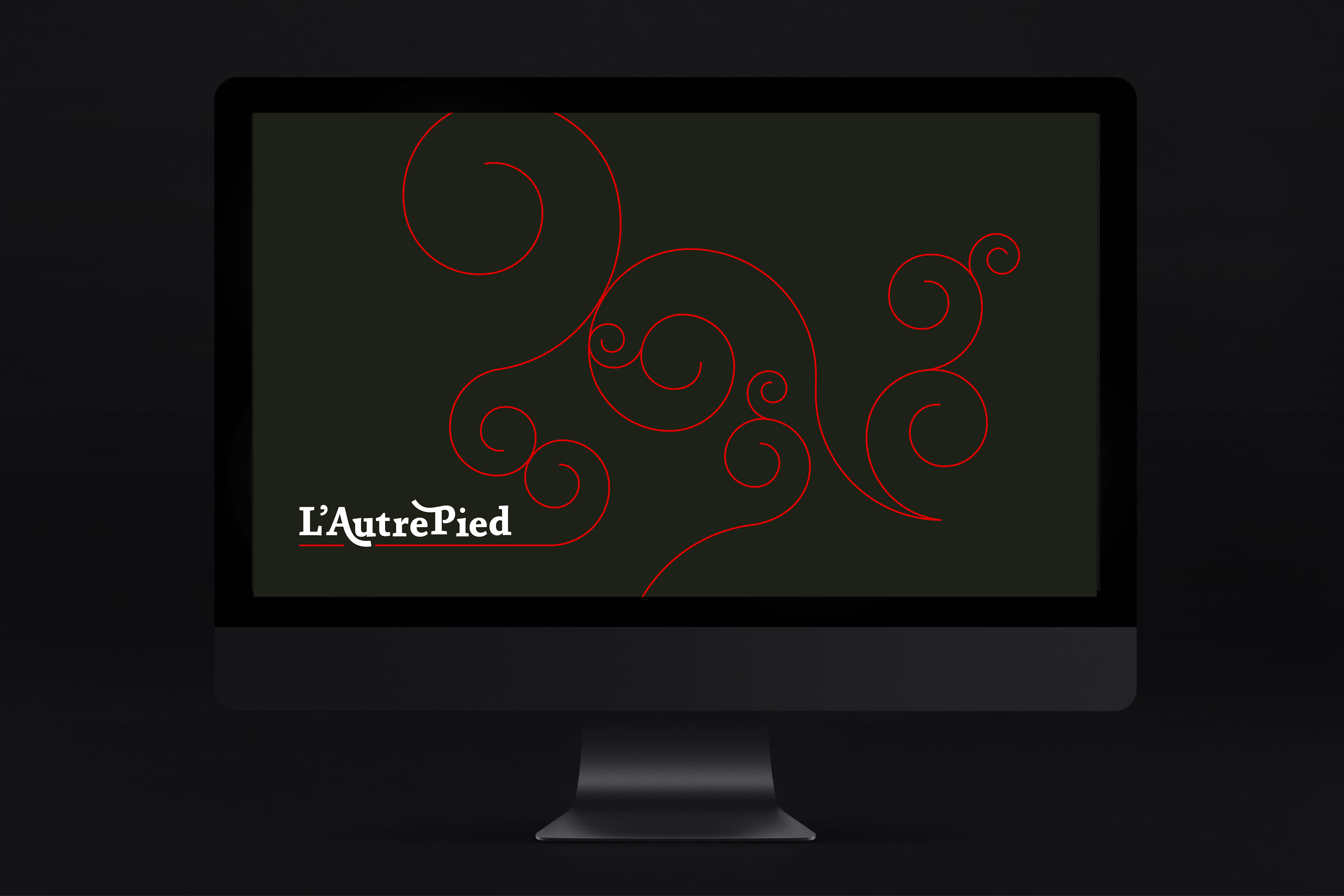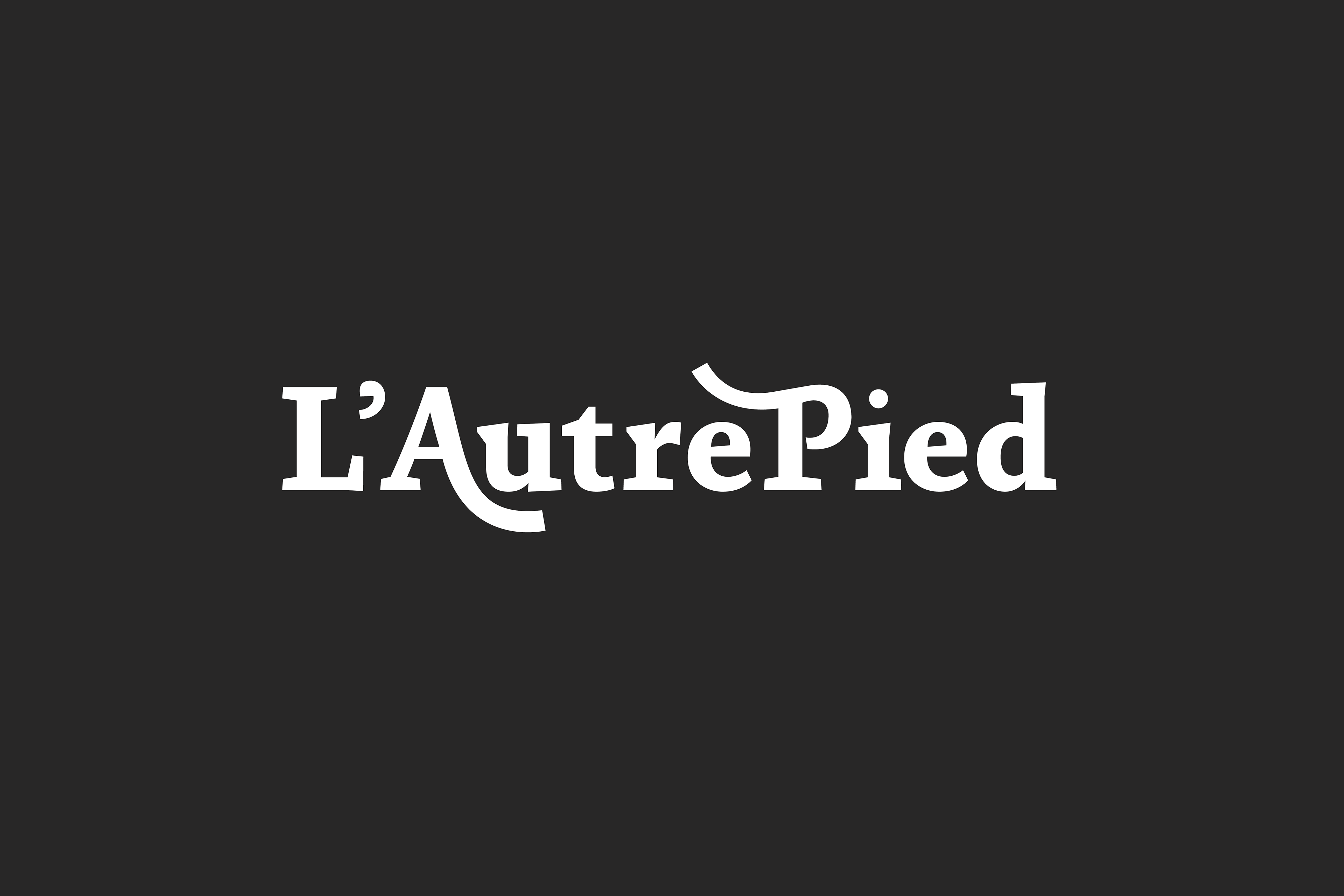
L"Autre Pied
Set-up by the owners of Pied-a-Terre fame. Their objective was to create a French restaurant with a distinctive high quality menu and style but with a more relaxed atmosphere. After the success of Pied-a-Terre, we were approached to design the new identity. I created a visual language that is fundamentally a modern, minimal take on a typically French Aesthetic – Art Nouveau. Just a year after opening, L’Autre Pied was awarded its first Michelin star.